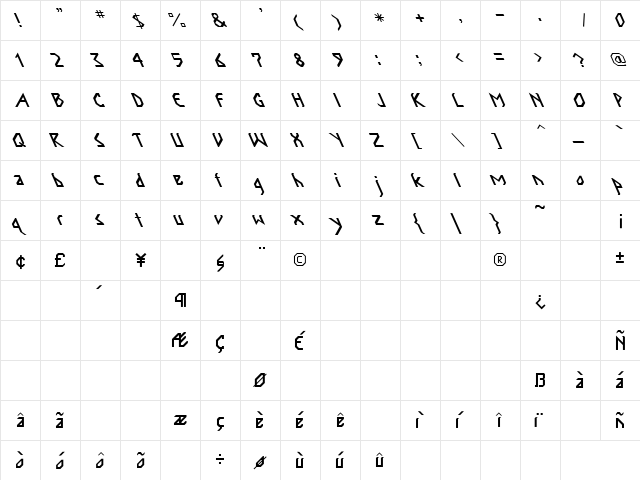
Inka Bod Spilled Lefty Regular
Design Context for Inka Bod Spilled Lefty Typeface
Inka Bod Spilled Lefty is a composed and adaptable typeface that performs quietly and consistently across a wide range of design contexts.